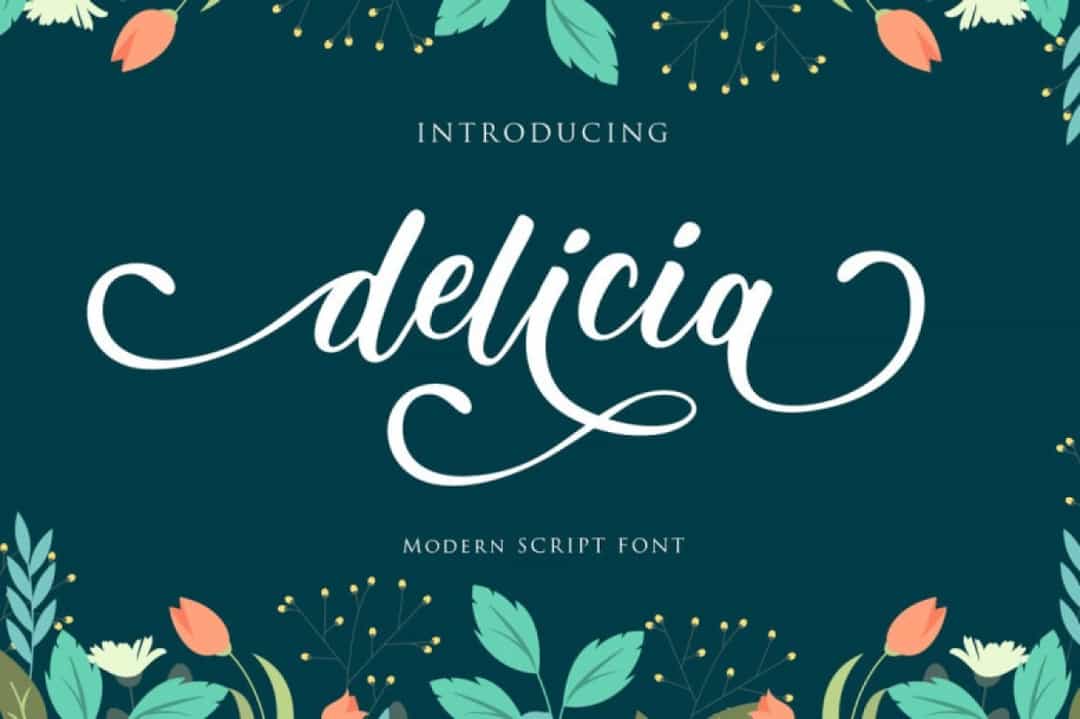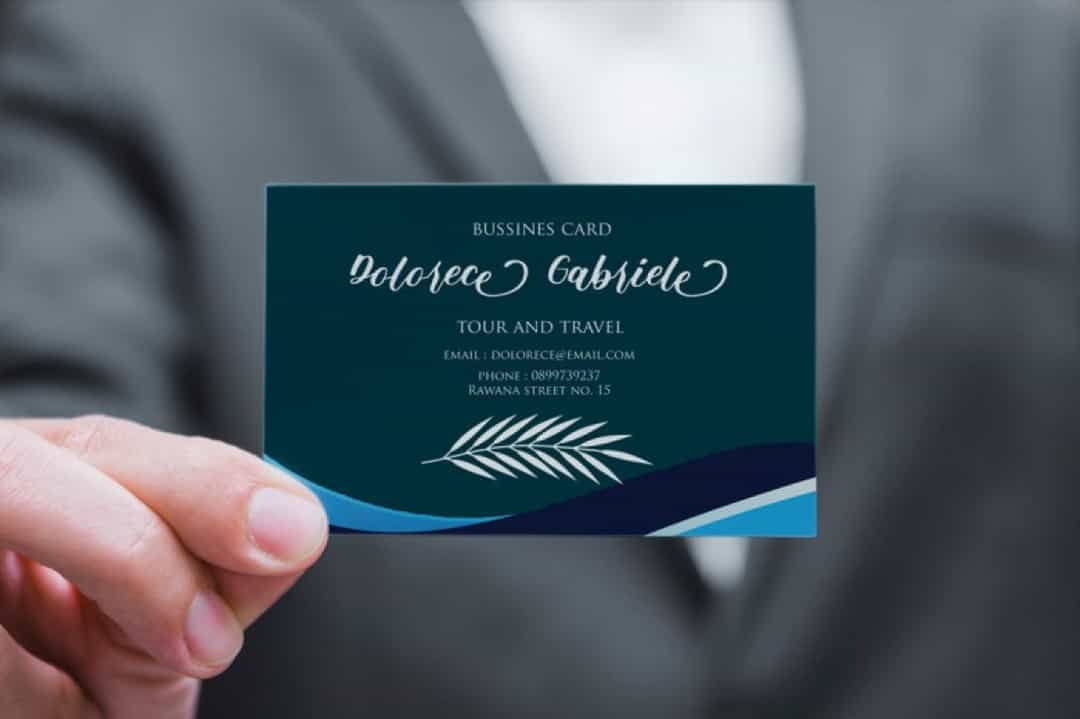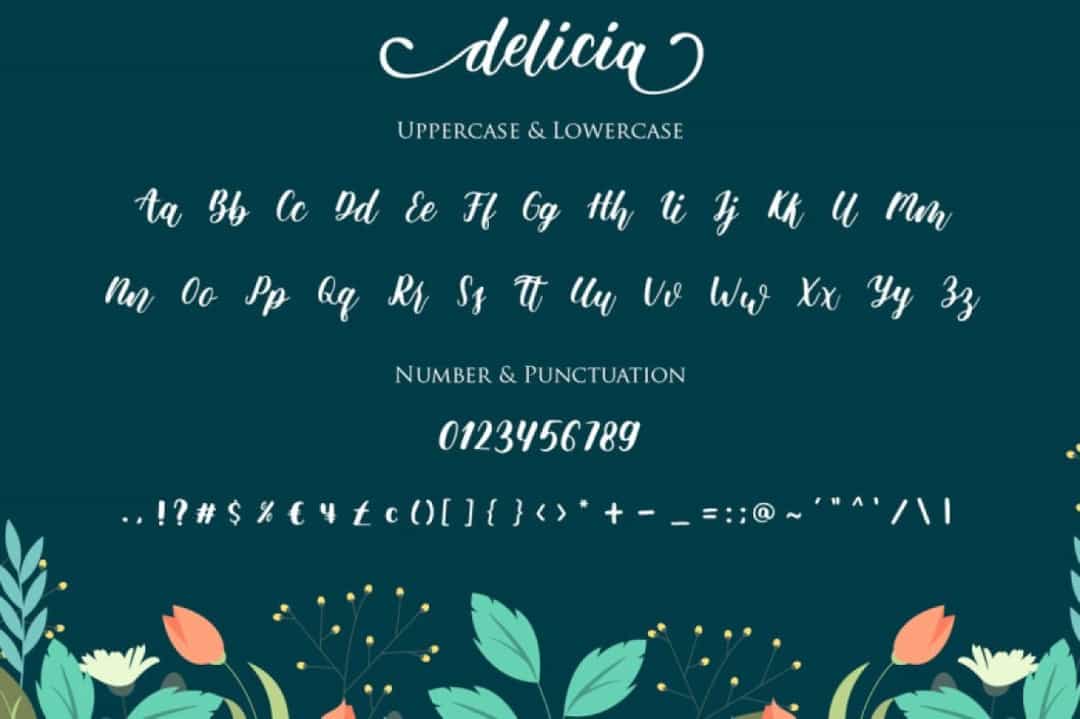
Discover Delicia Font, part of the Calligraphy collection—a versatile and unique font perfect for adding a personal touch to your projects. Download it for free and enjoy crafting designs with style, from invitations to social media posts. This font is available exclusively for personal use, giving you the freedom to create without limits. Unlock your creativity with Delicia Font today!
“Delicia”, font is an elegant and feminine font designed with style in mind. Featuring beautiful swashes that give an air of femininity to your design, delicia offers OTF Punctuation and Numeric 53 Swashes International Language it works across PC/Mac Simple installations Available Adobe Illustrator, Photoshop, InDesign as well as Microsoft Word compatibility